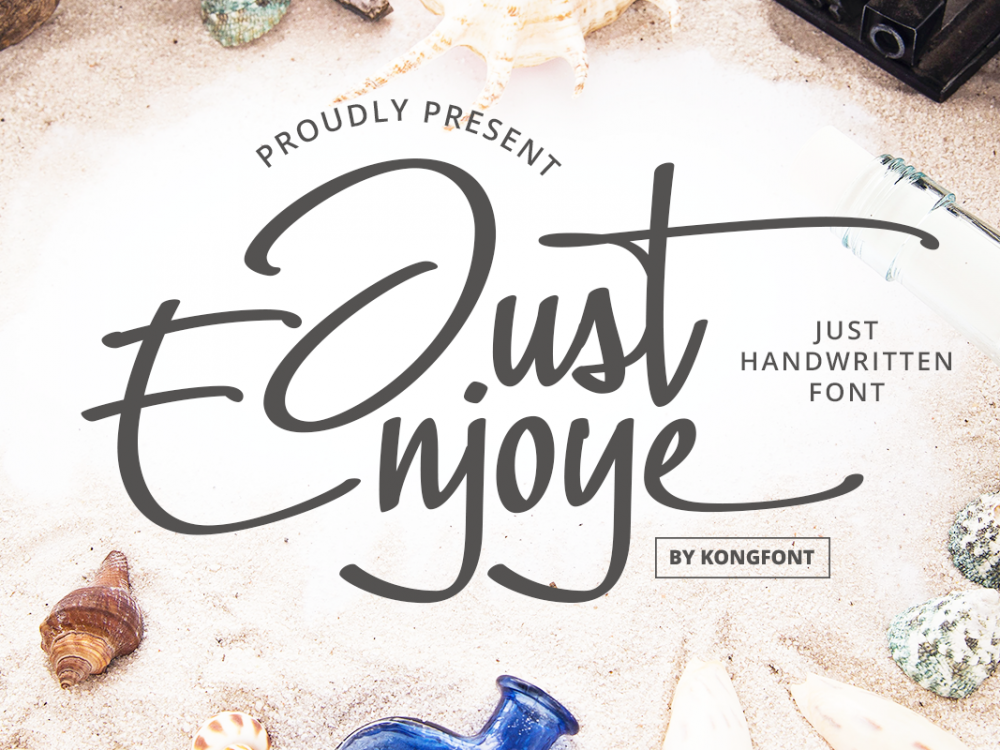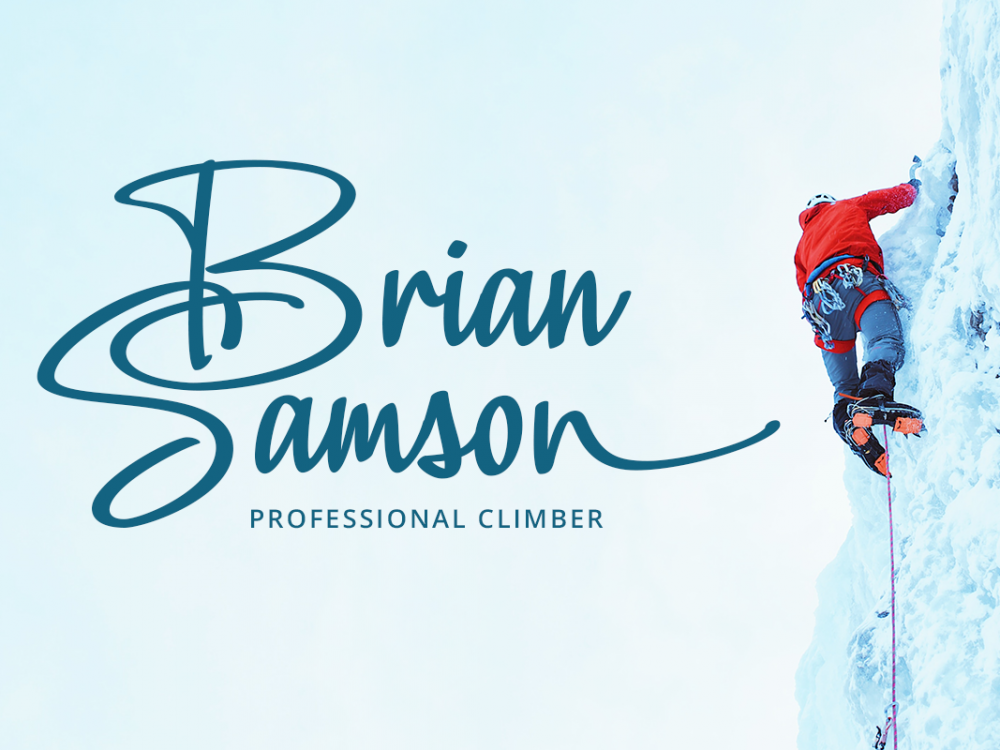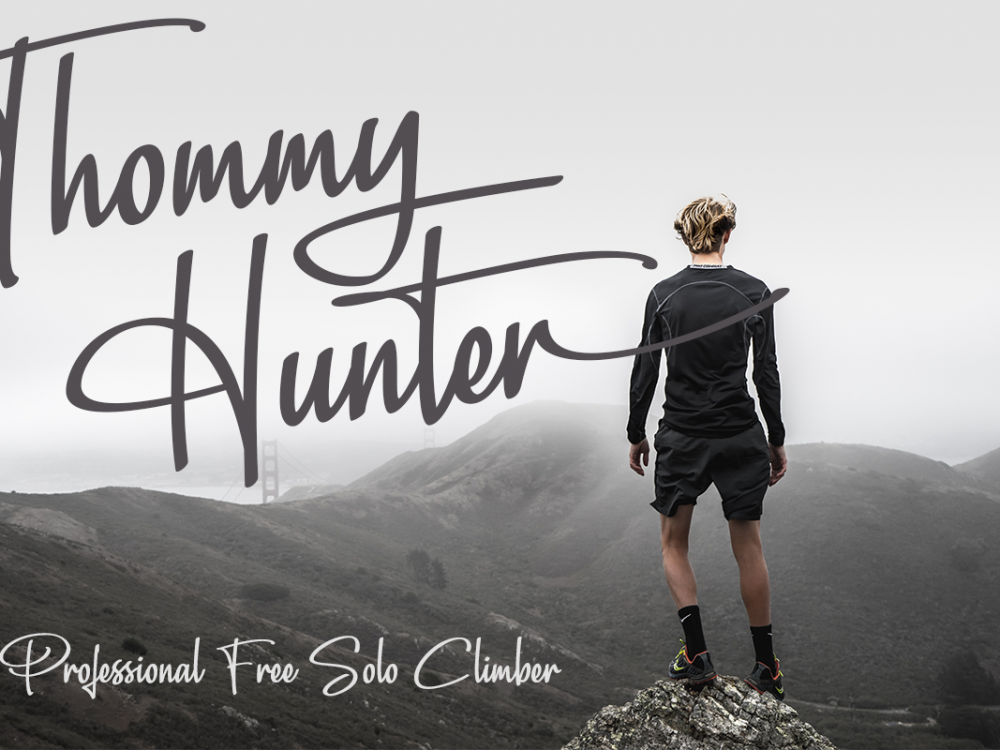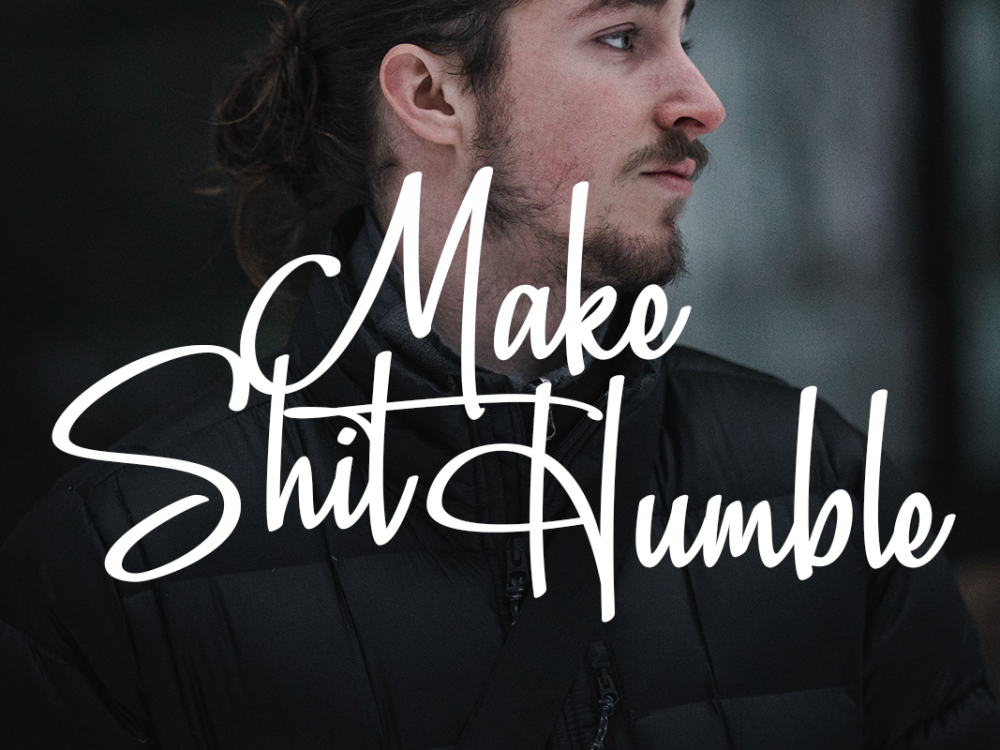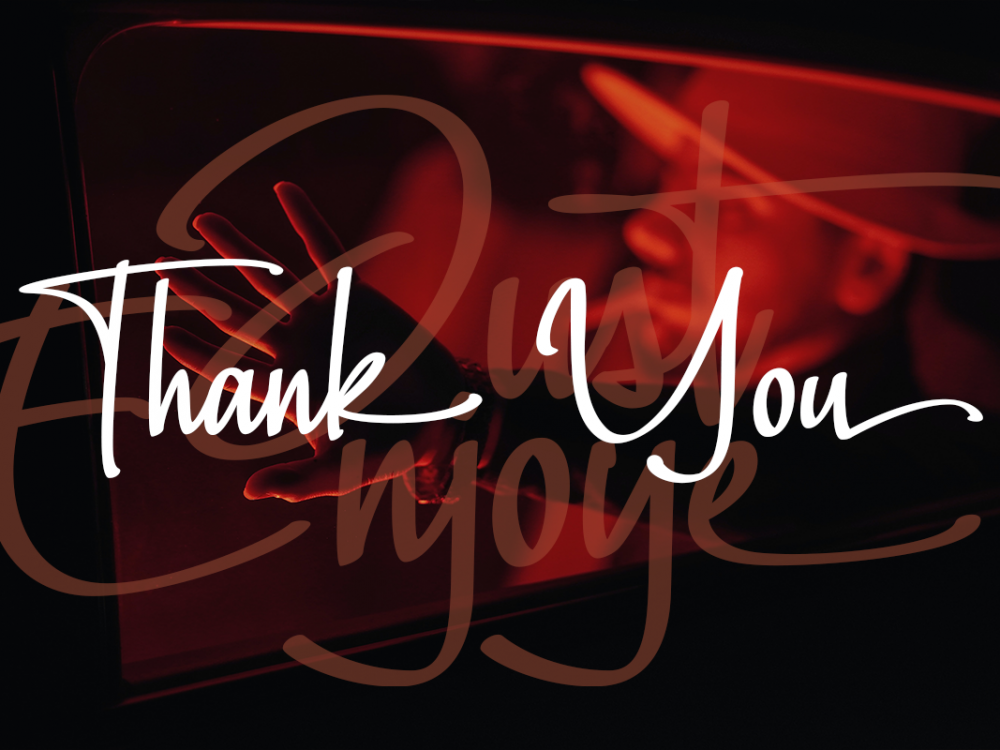
Just Enjoye Free Font
Just Enjoye Free Font is a beautiful handwritten font that simulates detailed brush writing and is very suitable for creating various design projects that require a scripted font. These can be posters, invitations, cards, branding, flyer prints, etc. If you wish to access more features and use them for commercial work please buy the full version.